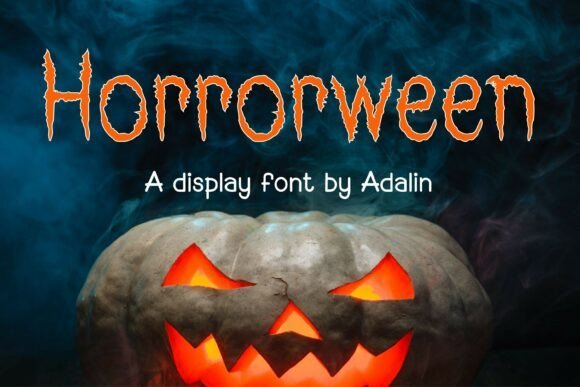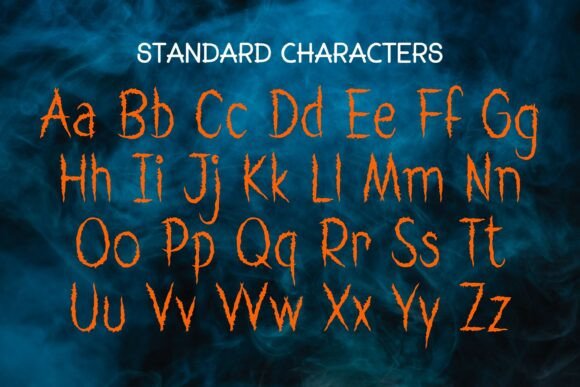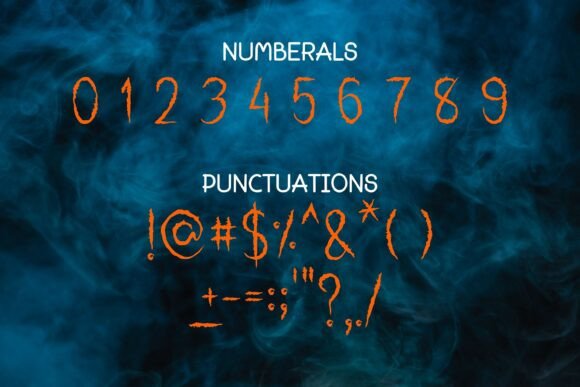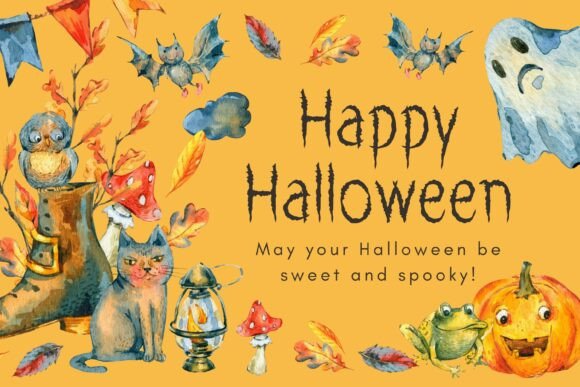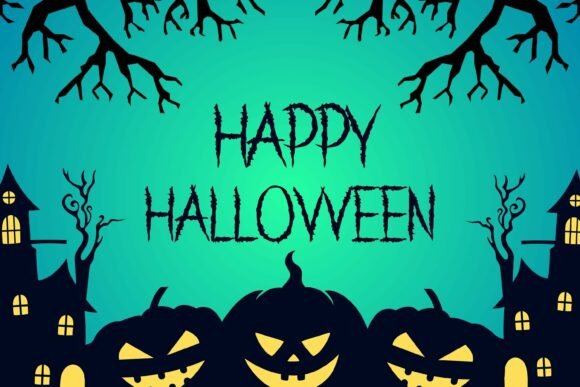
Get Ready to Cast a Spell with Your Halloween Designs
As the crisp autumn air sets in and the spooky season approaches, creative minds start buzzing with ideas. You’re probably brainstorming ways to make your Halloween project stand out from the crowd. The perfect starting point? A font that captures the essence of the season – the Horrorween Font.
This decorative font is specifically designed to bring a touch of Halloween magic to your designs. With its eerie yet charming aesthetic, the Horrorween Font is perfect for creating invitations, posters, and other spooky-themed materials that will leave a lasting impression. Whether you’re a seasoned designer or a DIY enthusiast, this font is a valuable addition to your toolkit, allowing you to bring your creative visions to life in a unique and captivating way.
Horrorween Font Key Features
- Font Family: Horrorween is a unique, hand-drawn font that combines elements of horror and Halloween themes, making it perfect for spooky designs.
- Character Set: Includes a wide range of characters, including uppercase and lowercase letters, numbers, punctuation, and special characters.
- Unique Characteristics: Horrorween features a bold, distressed look with intricate details and textures, adding a spooky and eerie atmosphere to any design.
Designer Review: Horrorween Font
Overall, I think the Horrorween Font is a great addition to any spooky or Halloween-themed project. It’s perfect for creating a creepy atmosphere and adding some edge to your designs. ✨
- Unique and creative design that’s perfect for Halloween-themed projects.
- The font is highly customizable, allowing you to adjust the size, color, and spacing to fit your design needs.
- It’s a great choice for creating a sense of eeriness and foreboding in your designs.
- ⚠️ The font may be too bold or overpowering for some designs, so use it sparingly.
- ⚠️ It may not be suitable for projects that require a more subtle or understated approach.
- ⚠️ The font can be difficult to read in small sizes or with certain color combinations.
Overall, I think the Horrorween Font is a great choice for designers who want to add some spooky flair to their projects. While it may have some limitations, it’s a unique and creative font that’s perfect for Halloween-themed designs. With some careful planning and use, it can add a lot of depth and atmosphere to your designs. ✨
Tips for Getting the Most Out of the Horrorween Font
For a more effective use of the Horrorween Font, consider the following tips:
- Use the font in bold and italics to create a sense of drama and tension.
- Pair the font with a dark color scheme to enhance the spooky atmosphere.
- Experiment with different font sizes and styles to create a sense of hierarchy and emphasis.
The Horrorween Font is suitable for a variety of applications, including:
- Spooky-themed designs, such as Halloween decorations and invitations